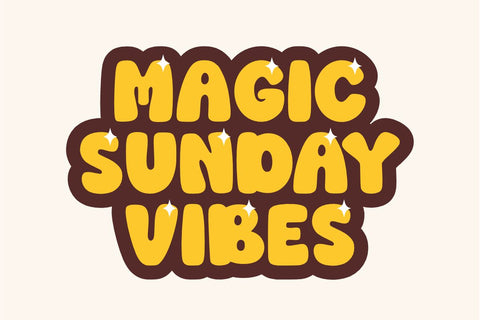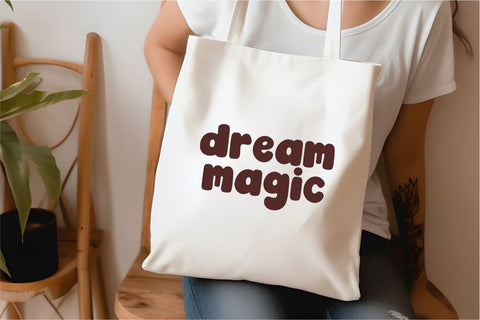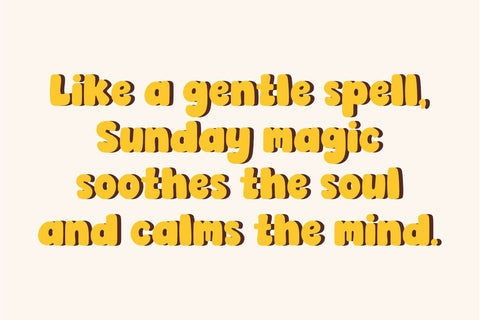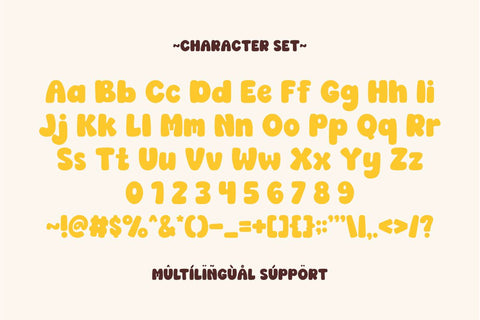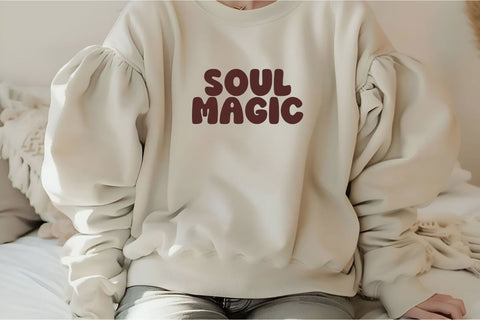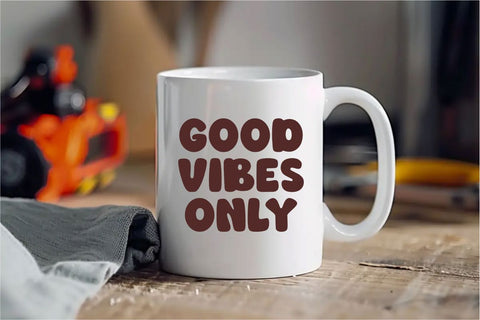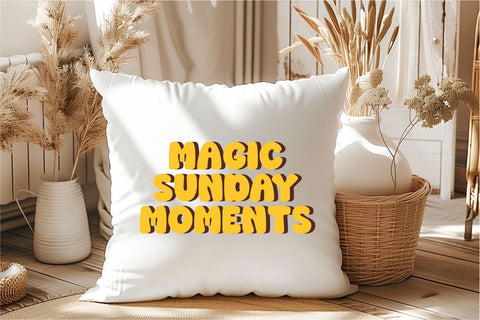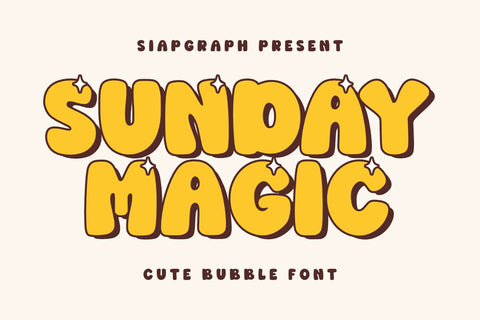
Sunday Magic - Cute Bubble Font
Sunday Magic is a cute and magical bubble font with a bold, playful charm. Designed with rounded, soft letterforms and sparkling star accents, it brings a sense of wonder and happiness to any design. Its thick, bouncy shapes and outlined shadow style make it ideal for children’s projects, fantasy themes, classroom designs, party invitations, greeting cards, stickers, and whimsical branding. Whether you're creating for print or digital, Sunday Magic adds an extra sprinkle of joy and enchantment to your typography.